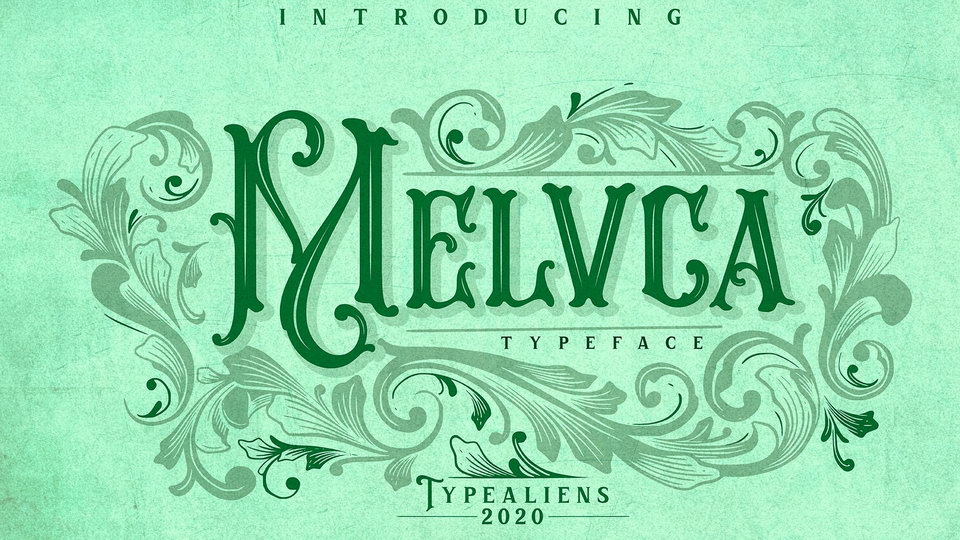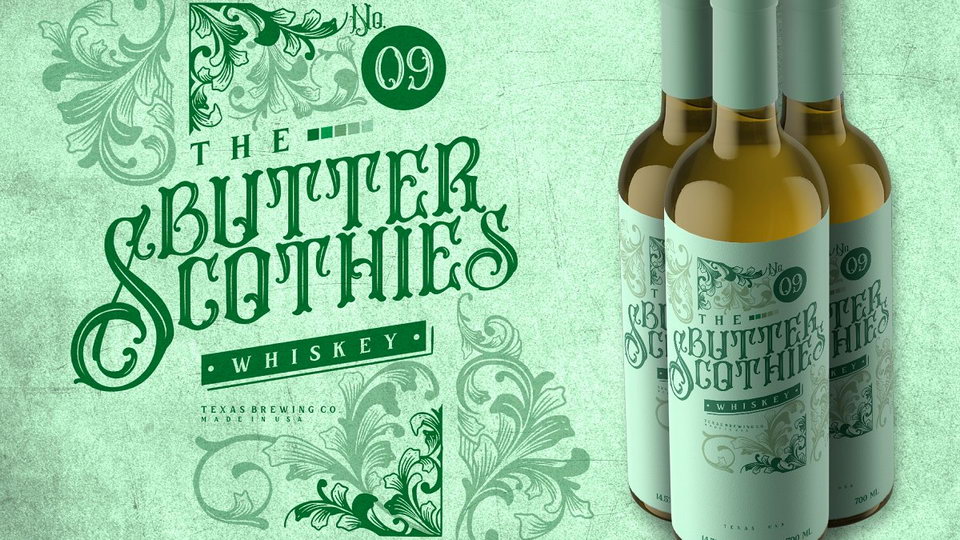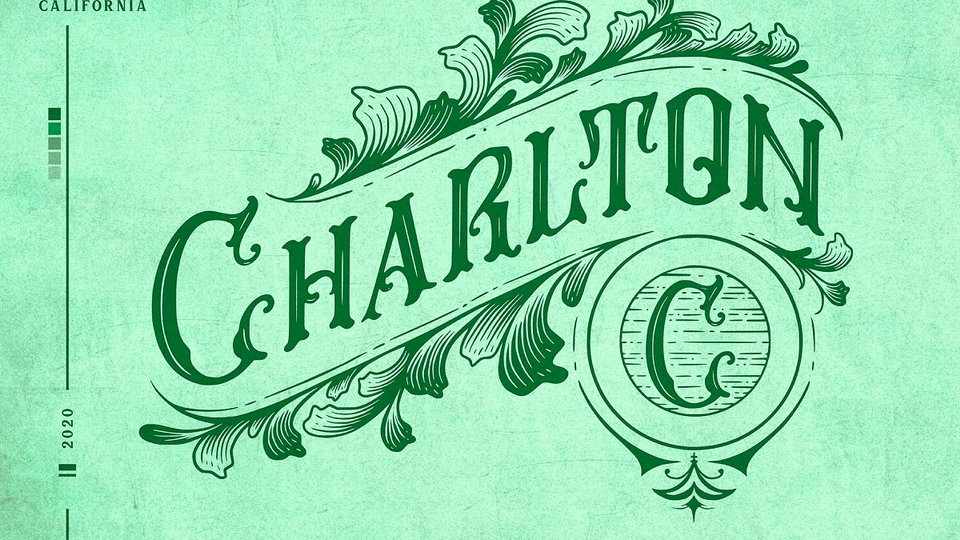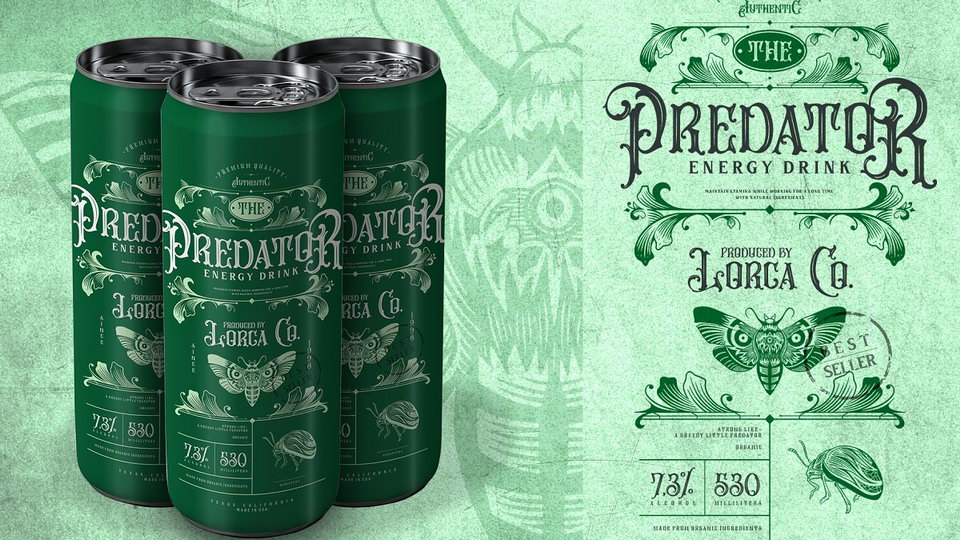
Melvca is a display font with a vintage art nouveau-style theme. It was inspired by the form of leaves / tendrils, like art nouveau features that contain a lot of floral elements.
Melvca will be very suitable for making logo badge designs, liquor label designs, poster designs, packaging designs, and others. and supported by extra bonuses in the form of ornaments, illustrations and a little badge template, so it is expected to help in making your design layout later.